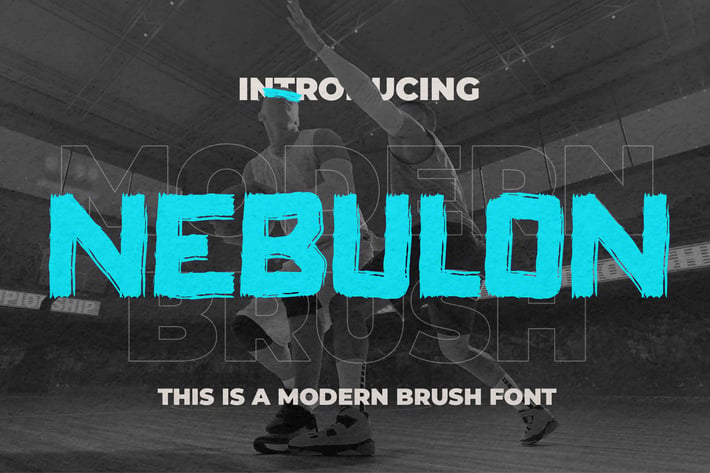
NEBULON - This Is Modern Brush Font
Hello Everyone, introduce our new product Font NEBULON This Is Modern Brush Font.This is a Textured Natural Style and classy style with a clear style and dramatic movement.
This font NEBULON is great for your next creative project such as logos, printed quotes, invitations, cards, product packaging, headers, Logotype, Letterhead, Poster, Design this font is great for your creative projects such as watermark on photography, and perfect for logos & branding, invitation,advertisements,product designs, stationery, wedding designs,label ,product packaging, special events or anything that need handwritting taste.
That is has charming, authentic and relaxed characteristic more natural look to your text.